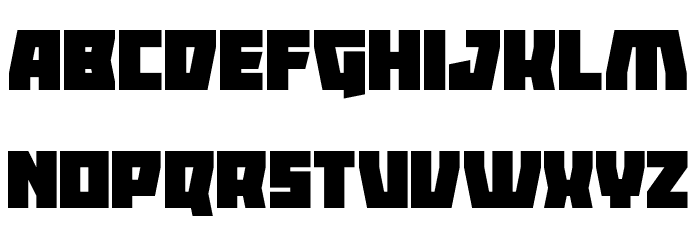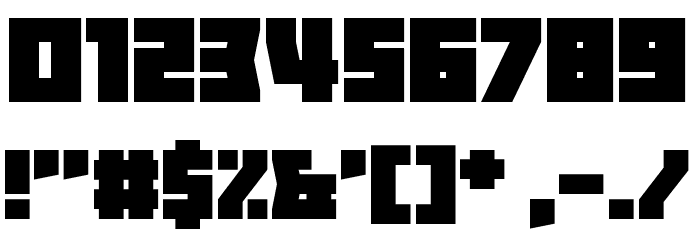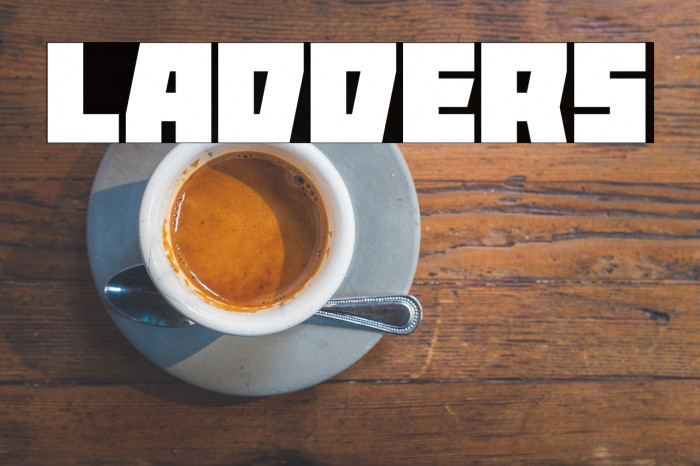
Ladders Font
This font features a bold, geometric design with a strong, blocky appearance. The characters are constructed with sharp angles and straight lines, giving them a modern and industrial feel. The uppercase letters are particularly striking, with a uniform height and width that creates a cohesive look. The lowercase letters maintain the same boldness, ensuring readability while retaining the font's distinctive style. Numbers and special characters are designed to match the overall aesthetic, making them suitable for various applications. The font's heavy weight and solid structure make it ideal for impactful headlines and attention-grabbing designs.
- Proposed Projects: Ideal for posters, logos, branding, and any design requiring a strong visual impact.